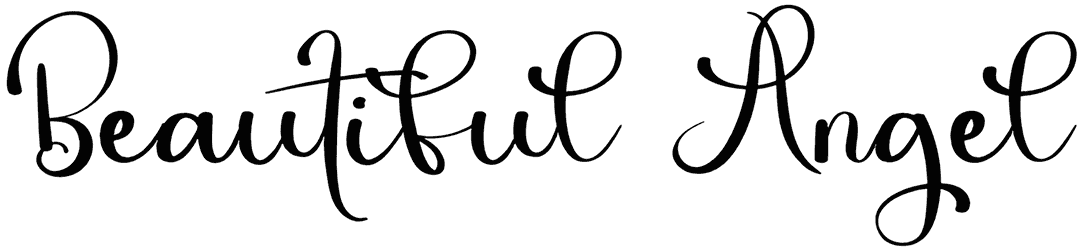
Beautiful Angel Font
It can be hard to find a font that makes your text eye-catching and conveys a distinctive and stunning vibe that gives all you need to affect your viewers and please your text. Here we want to suggest to you the Beautiful Angel font for your personal use, like writing wedding invitations, media posts, and beautiful stationery art. Give this handwritten font a try and take delight.
Beautiful Angel is an incredibly unique and beautiful handwritten font, defined by a joyful style. Fall for its ravishing style and use it to create gorgeous wedding invitations, beautiful stationary art, eye-catching social media posts, and much more!